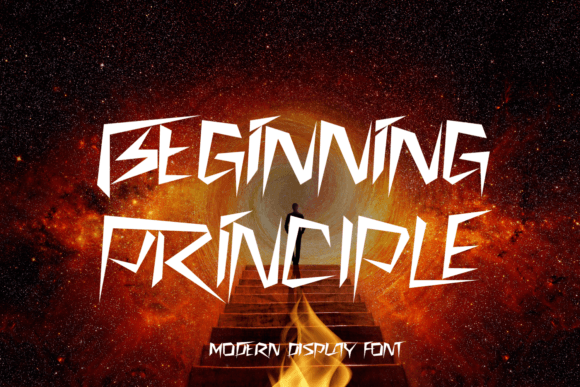
Introduction to Beginning Principle Font
Introducing Beginning Principle, an angular techno typeface inspired by the diagonal strokes, bringing a retro, arcade-style aesthetic to your designs.
But what sets this font apart from other typefaces is its non-traditional, scientific sensibility Sharp diagonal cuts and anomalistic gaps inject your words with a sense of experimentation and innovation, perfect for companies on the cutting edge of technology.